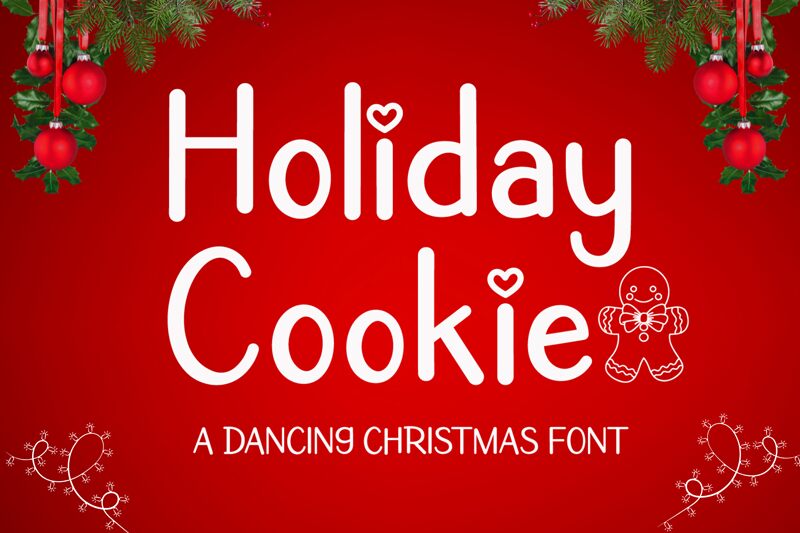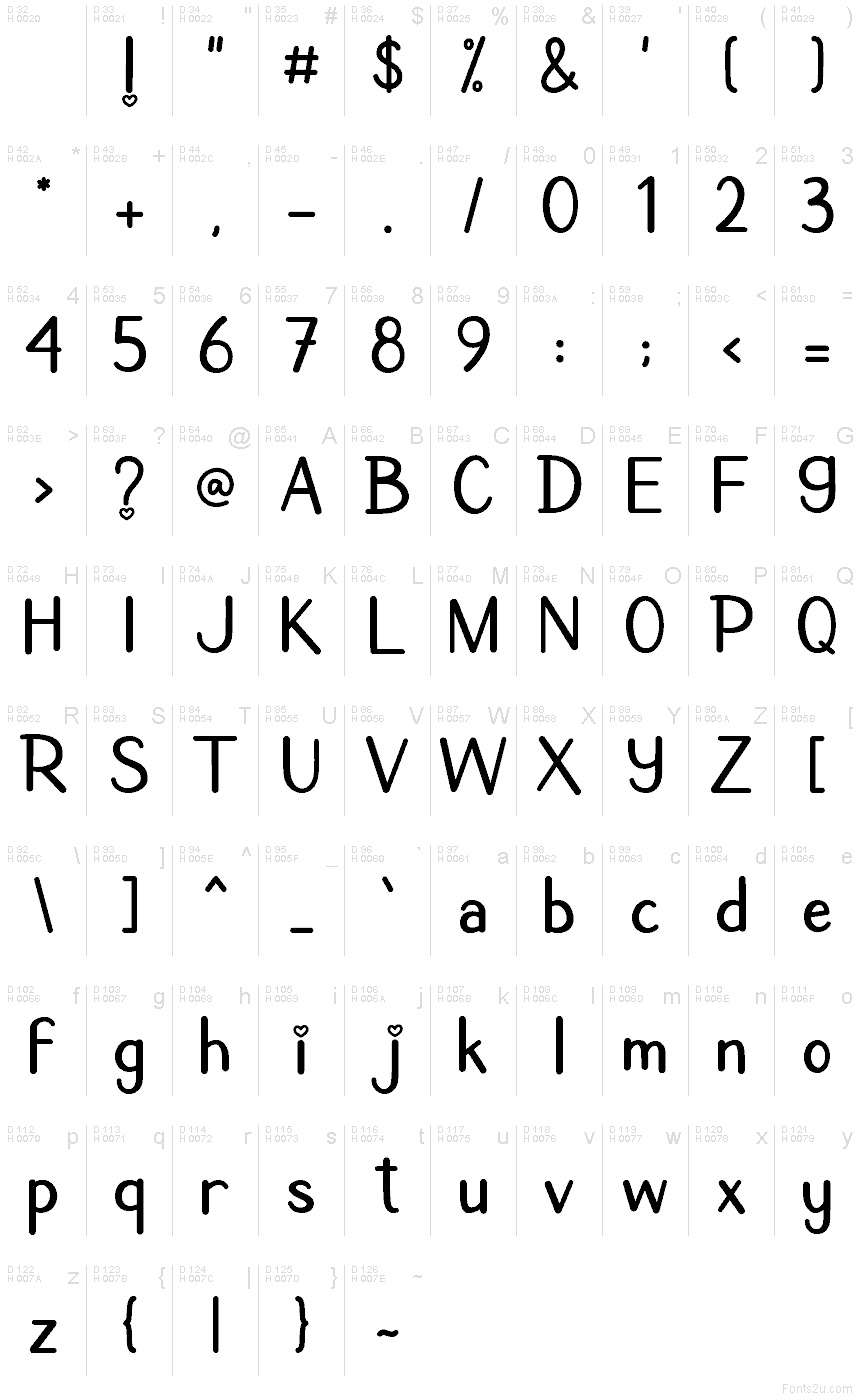
Holiday Cookie
Holiday Cookie font by AEN Creative Studio is a free Christmas font that looks like it was piped from a frosting bag straight onto your screen. Rounded strokes, playful bounce, and tiny heart accents give it a warm, hand-lettered feel-like notes on a cookie tin or tags on homemade gifts. It’s bold enough to stay legible at smaller sizes, but still soft and friendly, with just the right touch of holiday charm.
Using Holiday Cookie, you can brighten up greeting cards, gift tags, party invitations, kids’ crafts, festive social posts, stickers, and DIY packaging. This free font shines on anything that needs a cozy, family-friendly holiday vibe rather than a formal winter look. Pair it with a clean sans serif for body text, and let Holiday Cookie handle the cheerful headlines and short phrases.